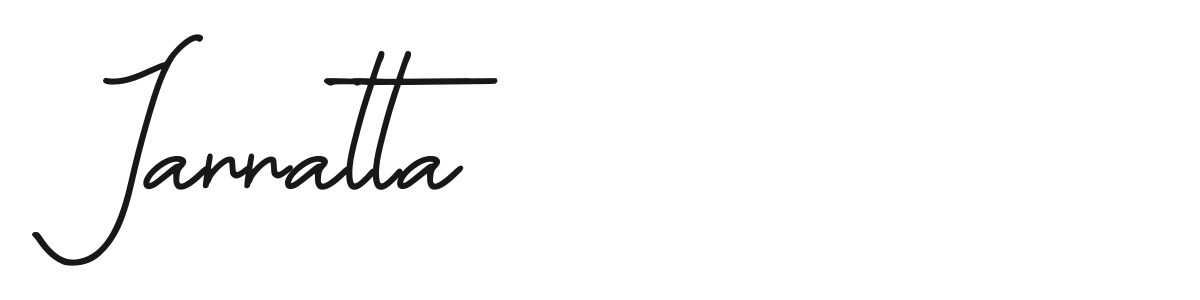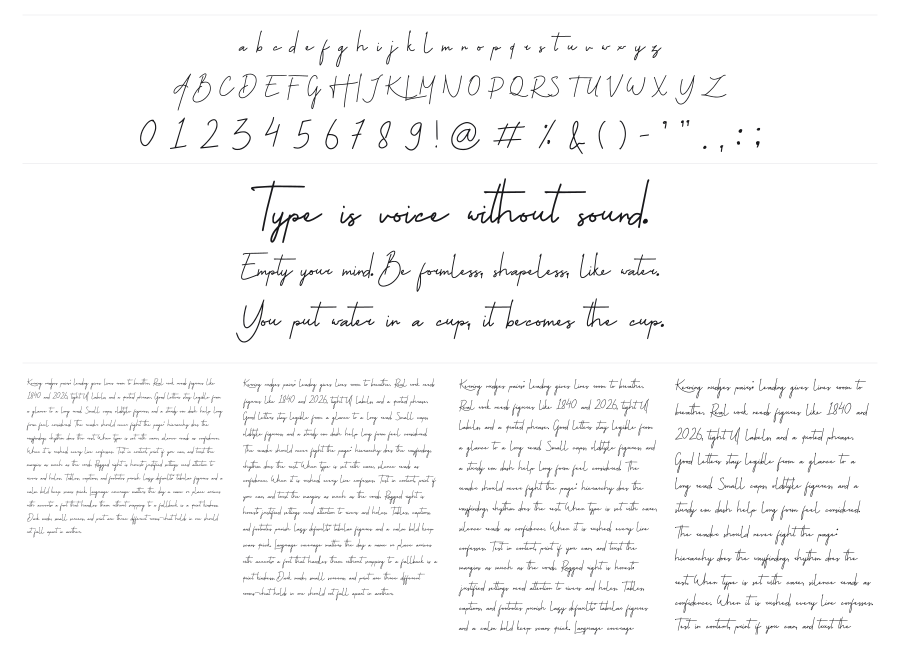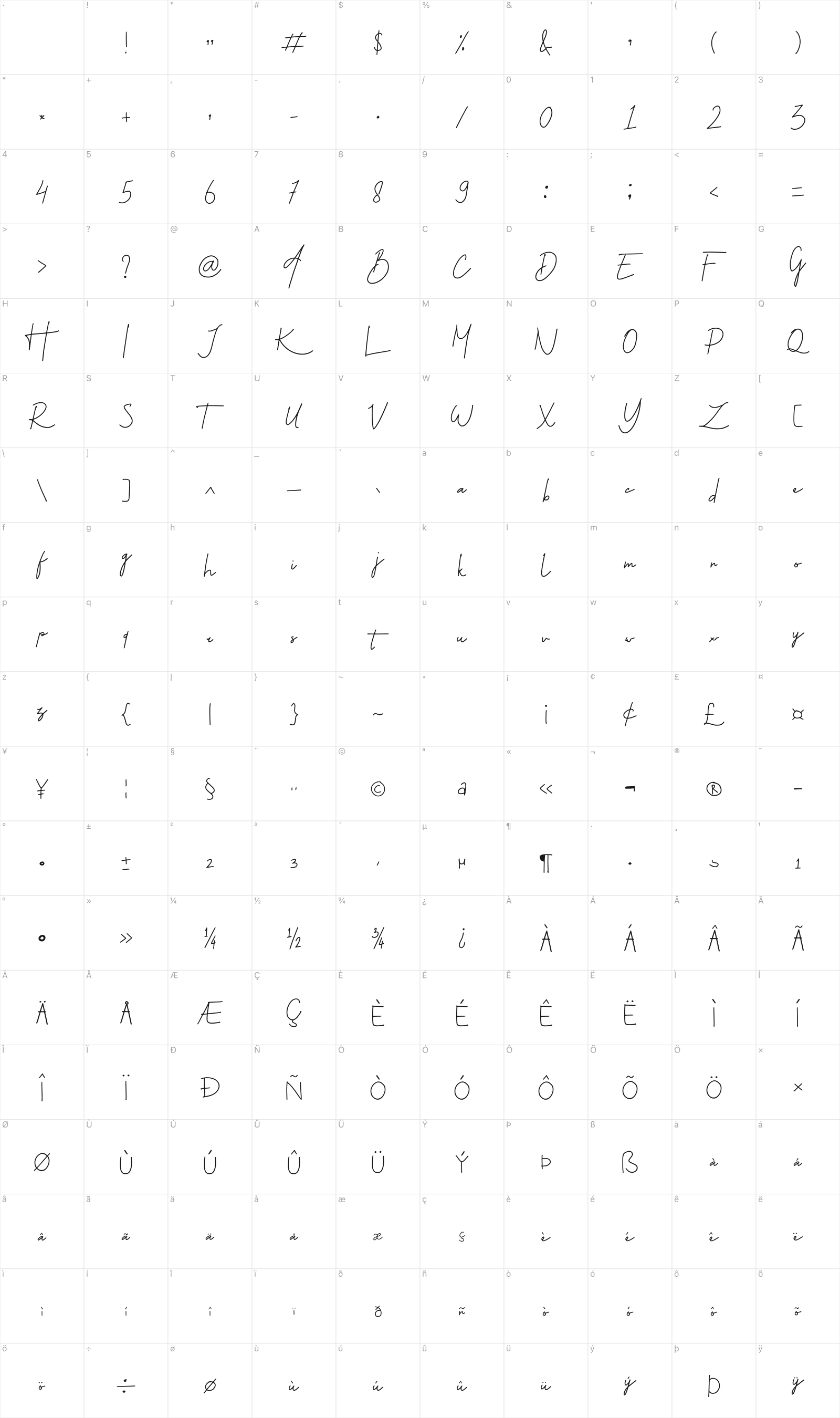
Jannatta
Jannatta is a flowing casual script with ultra-thin strokes and long sweeping connections between letters. The design leans into an effortless, handwritten looseness that feels modern and approachable without losing elegance. It works best at large sizes where the continuous stroke movement reads clearly.